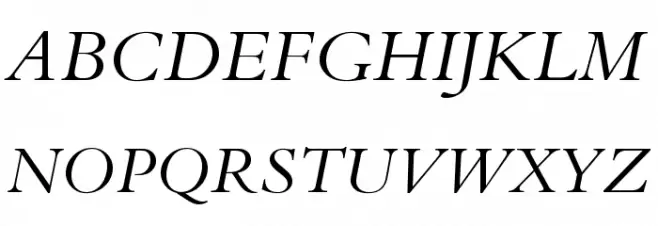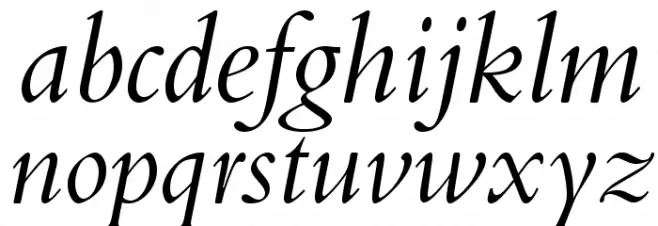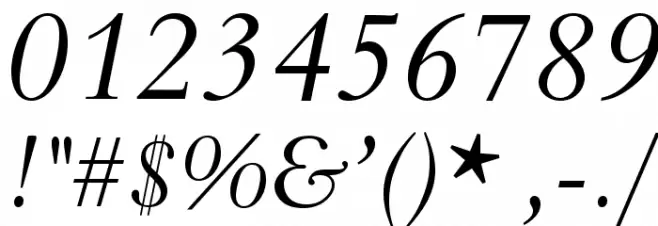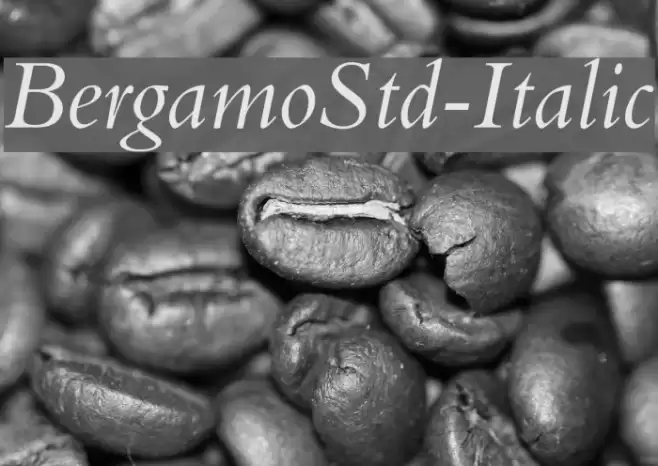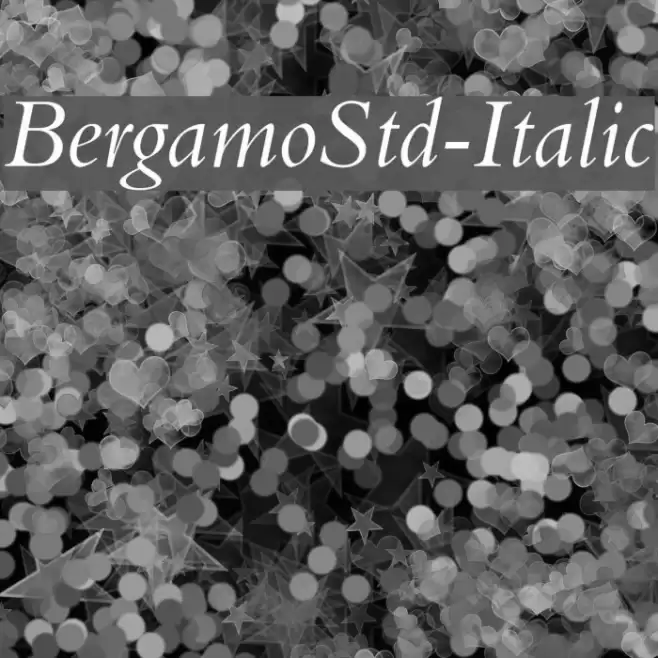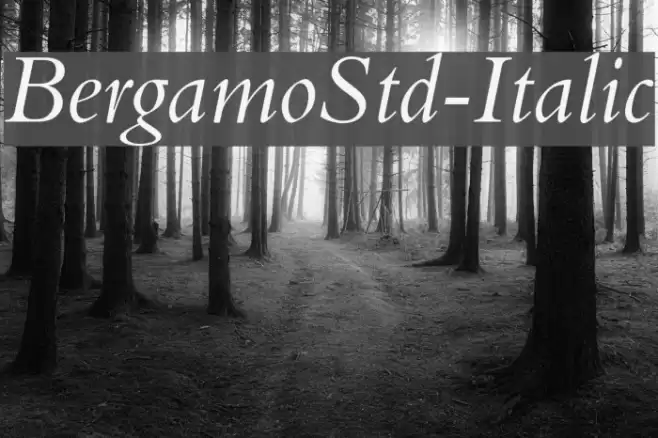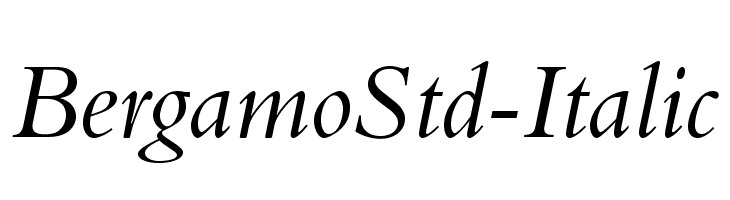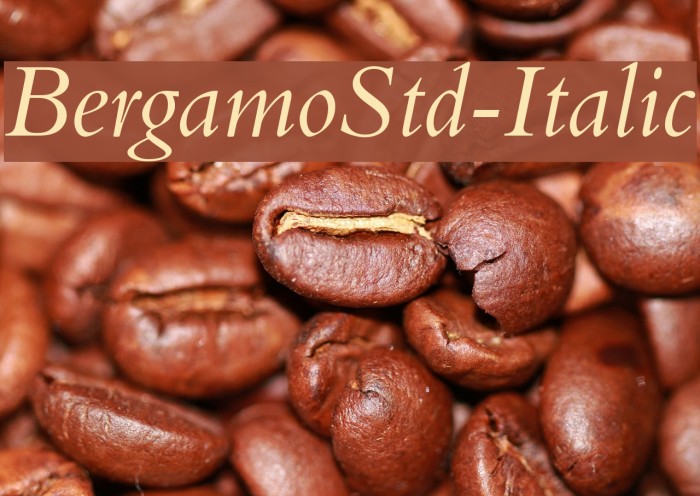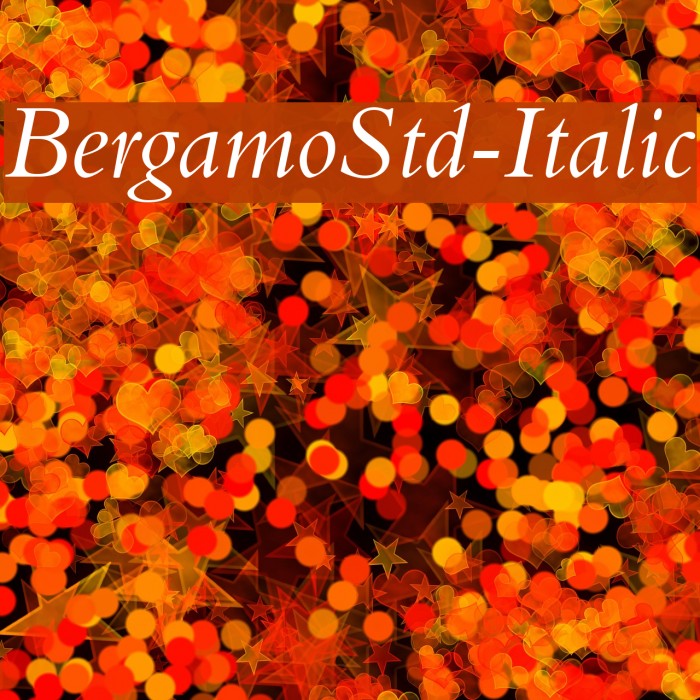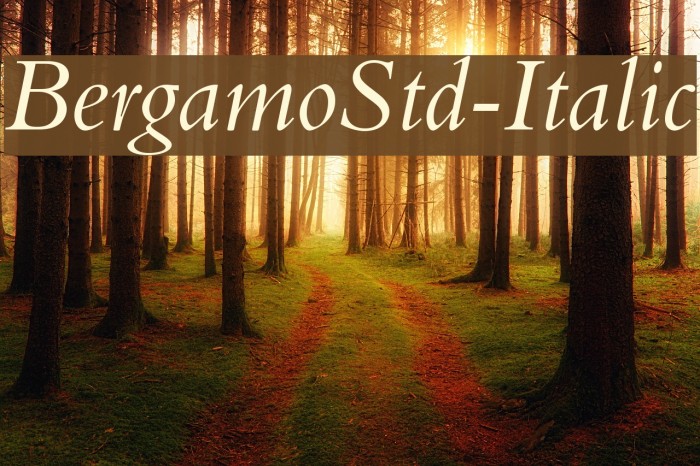
BergamoStd-Italic
This elegant serif font features a classic italic style with smooth, flowing curves and a refined appearance. The characters exhibit a slight slant to the right, enhancing the sense of motion and sophistication. The uppercase letters are tall and stately, while the lowercase letters maintain a consistent and harmonious flow. The numerals are proportional, ensuring readability and balance. The special characters are designed with the same attention to detail, making them suitable for a variety of uses. The font's overall aesthetic is timeless, making it ideal for projects that require a touch of elegance and tradition.
An elegant serif italic font with smooth, flowing curves and a classic appearance.
- Proposed Projects: Ideal for wedding invitations, formal documents, book covers, and luxury branding.
- Category: Serif
- Overall Style: Classic